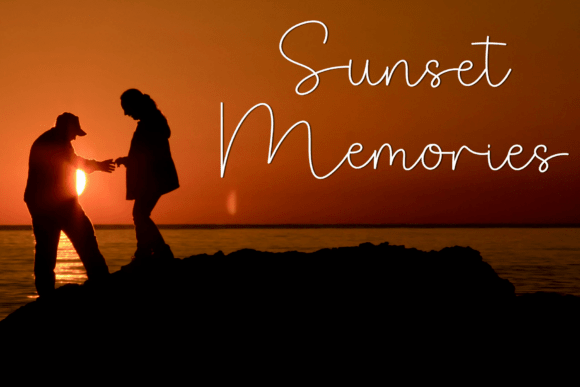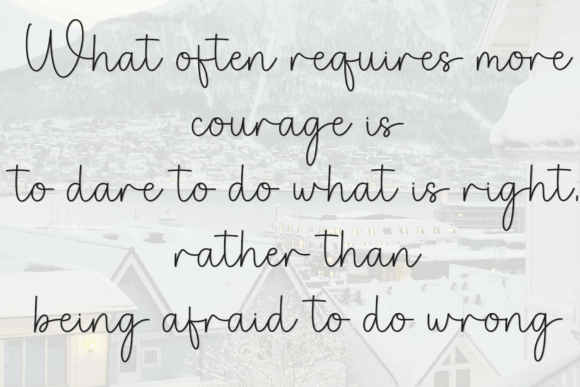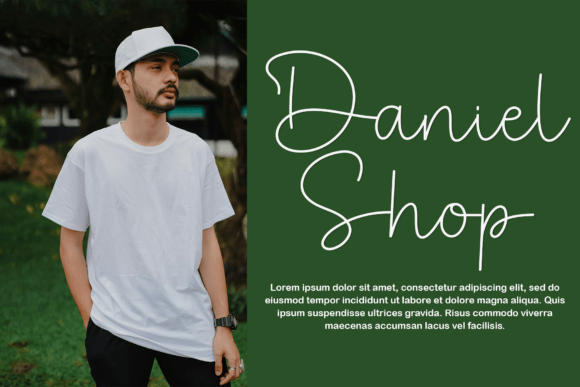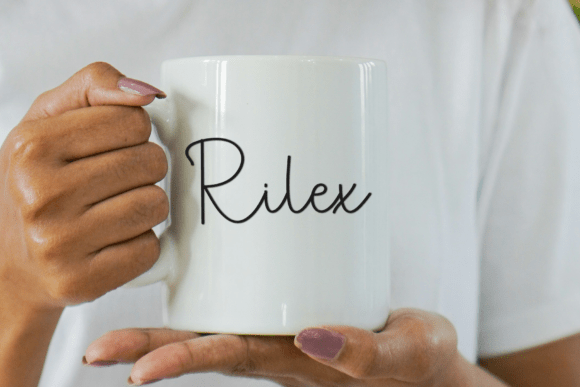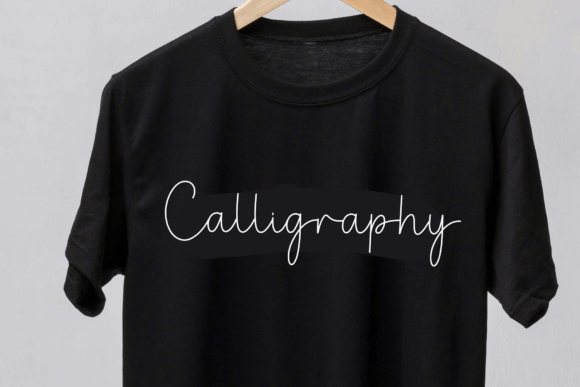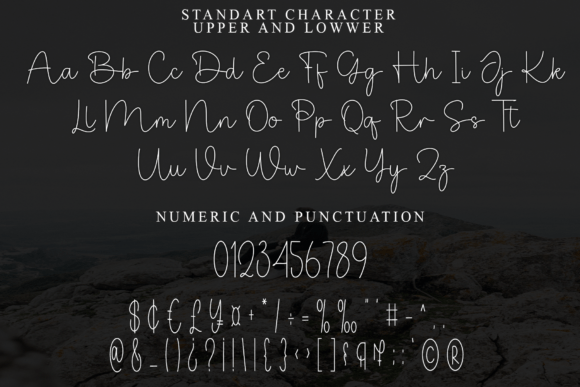
Introduction to Easter Signature Font
As you sit at your desk, surrounded by scraps of paper, paint, and glue, the excitement of a new creative project is brewing within you. You’ve finally decided on the theme, the colors, and the style, but there’s one crucial element missing – the perfect font. This is where the Easter Signature Font comes into play, a beautiful and eye-catching typeface designed to add a soft, unique touch to your designs.
With its distinctive strokes and character, the Easter Signature Font is a valuable resource for designers looking to elevate their creative projects. Its compatibility with various applications, including Windows and open-source platforms, makes it an ideal choice for a wide range of products. Whether you’re working on a design project or a craft, this natural font style is sure to enhance your designs and make them appealing to many audiences.
Easter Signature Font
- Unique, hand-drawn design with intricate details and patterns, perfect for creative projects and Easter-themed designs.
- Perfect for use in various design projects, including greeting cards, invitations, and digital art, as a design resource for creative professionals.
Honest Review: Easter Signature Font
I recently came across the Easter Signature Font, a free download that caught my attention due to its playful and whimsical feel. As a designer, I appreciate the potential this font has for creative projects, especially those centered around spring and Easter themes.
Here are some things that work well with the Easter Signature Font:
- Unique and quirky letterforms that add a touch of personality to any design.
- High-quality design that is suitable for both digital and print projects.
- ⚠️ Limited character set, which may make it less suitable for longer text-based projects.
- ⚠️ Not as versatile as some other fonts, which may limit its use in more formal or professional designs.
Overall, I think the Easter Signature Font is a fun and creative addition to any designer’s toolkit. While it may have its limitations, its unique charm and high-quality design make it a great resource for spring and Easter-themed projects.
Easter Signature Font
The Easter Signature Font is a high-quality design resource that can add a touch of elegance to any creative project. With its transparent background, this font can be easily integrated into various design platforms.
Tips for Getting the Most Out of the Easter Signature Font
To get the most out of the Easter Signature Font, experiment with different font sizes, colors, and combinations. You can also use it in conjunction with other design elements, such as images and graphics.
The Easter Signature Font is commonly used for Easter-themed designs, such as invitations, greeting cards, and social media posts. It can also be used for general spring and summer designs, such as wedding invitations and promotional materials.